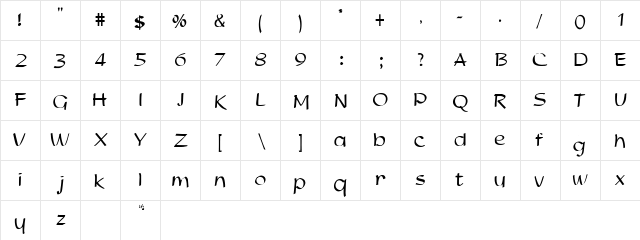
Stud Normal
Design Context for Stud Typeface
Stud is a composed and adaptable typeface that performs quietly and consistently across a wide range of design contexts.